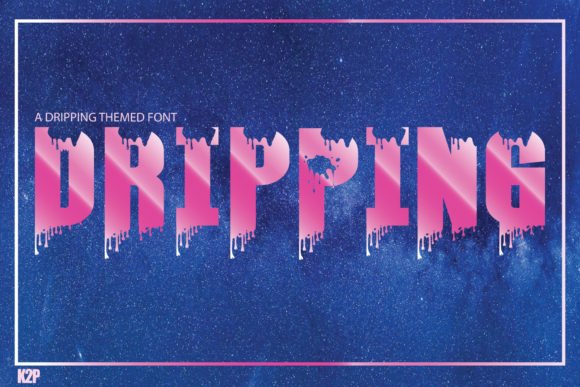
Introduction to Dripping Font
Dripping is a thick lettered yet unique and original decorative font that can be used for a variety of quotes or teaching material.
Its authentic look will add a personal and realistic feel to your designs This font is PUA encoded which means you can access all of the glyphs and swashes with ease.
Key Features of Dripping Font